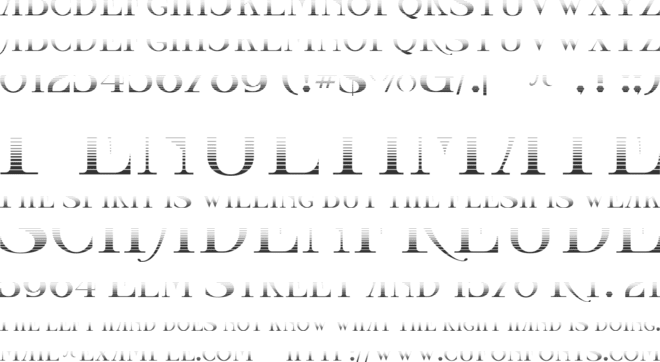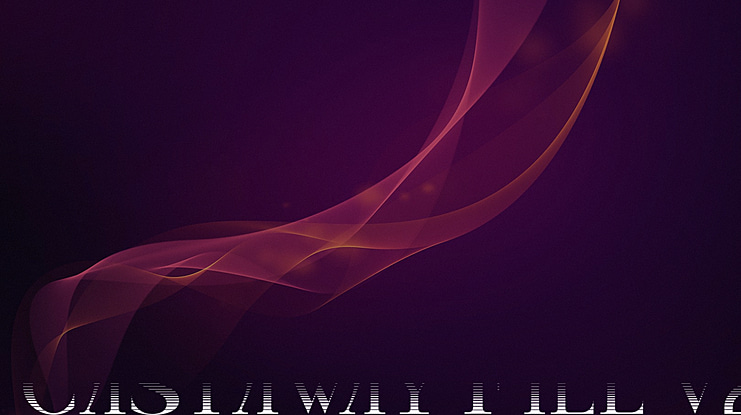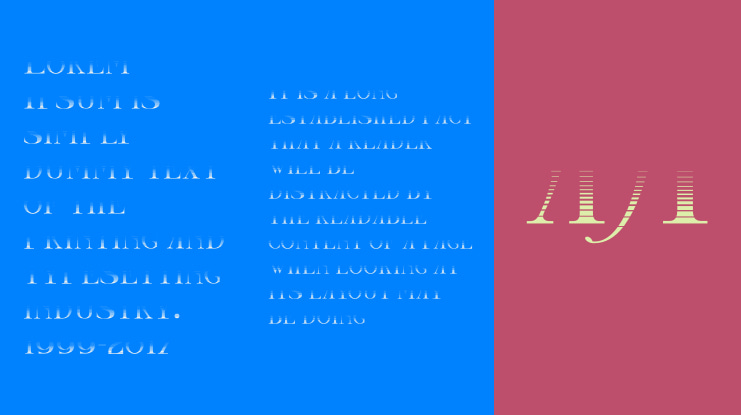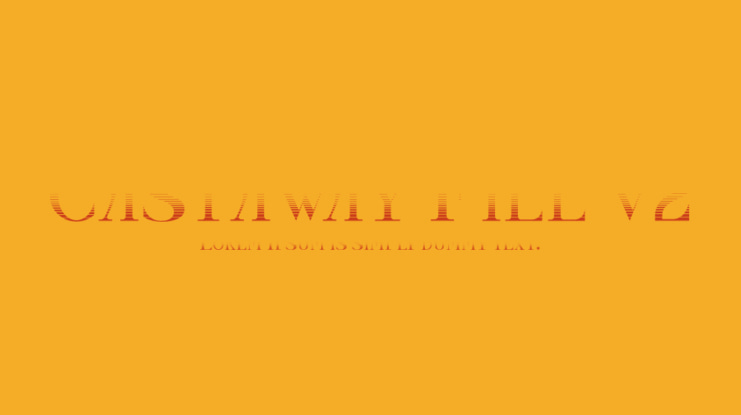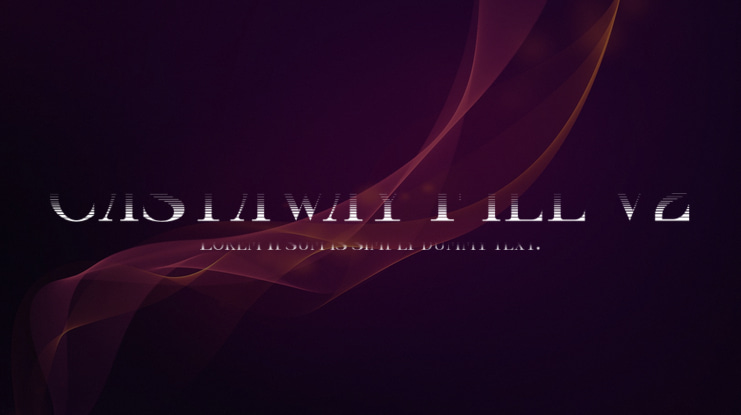
Castaway Fill v2 Font Family
Dan X Solo revival by Steve (Sleepy Gecko) Harrison
This is my revival of an old school font from the treasure chest of Dan X Solo. I made some extensions and added, an inline, solid, fill and outline version. So there are four fonts that should fit together nicely and reproduce at extremely large sizes cleanly and beautifully.